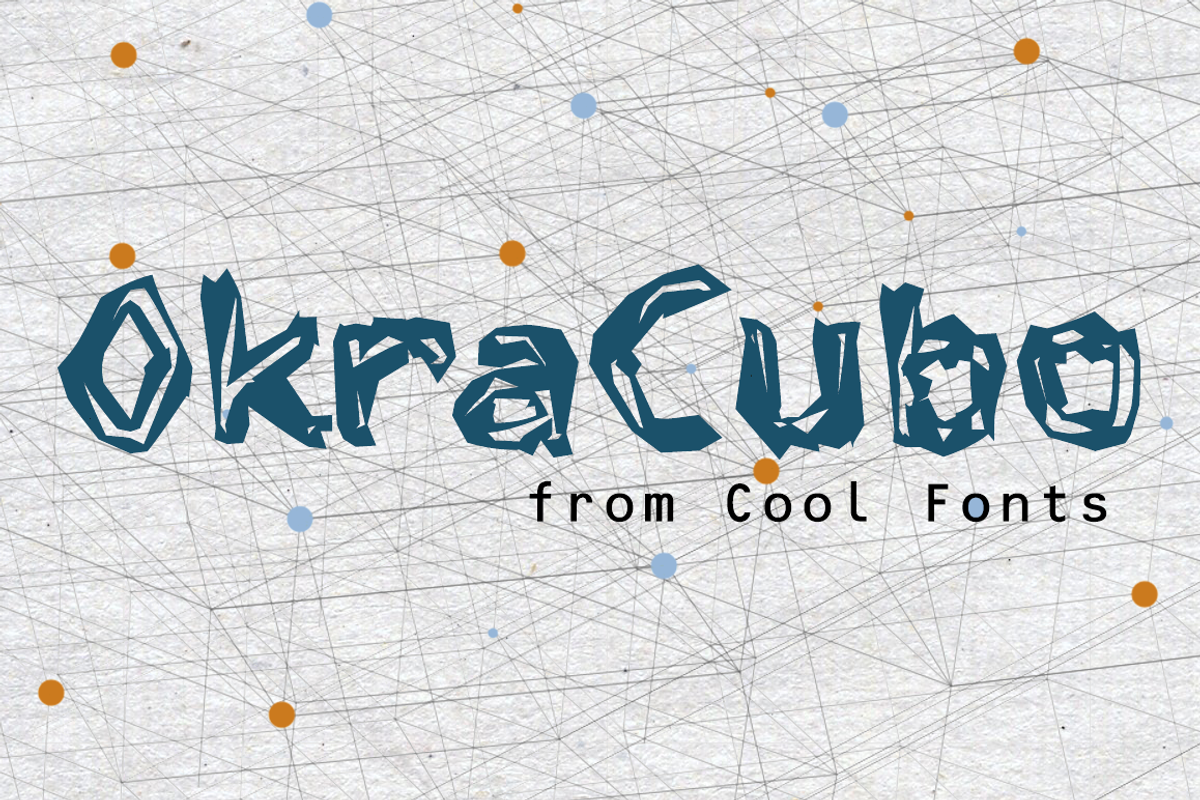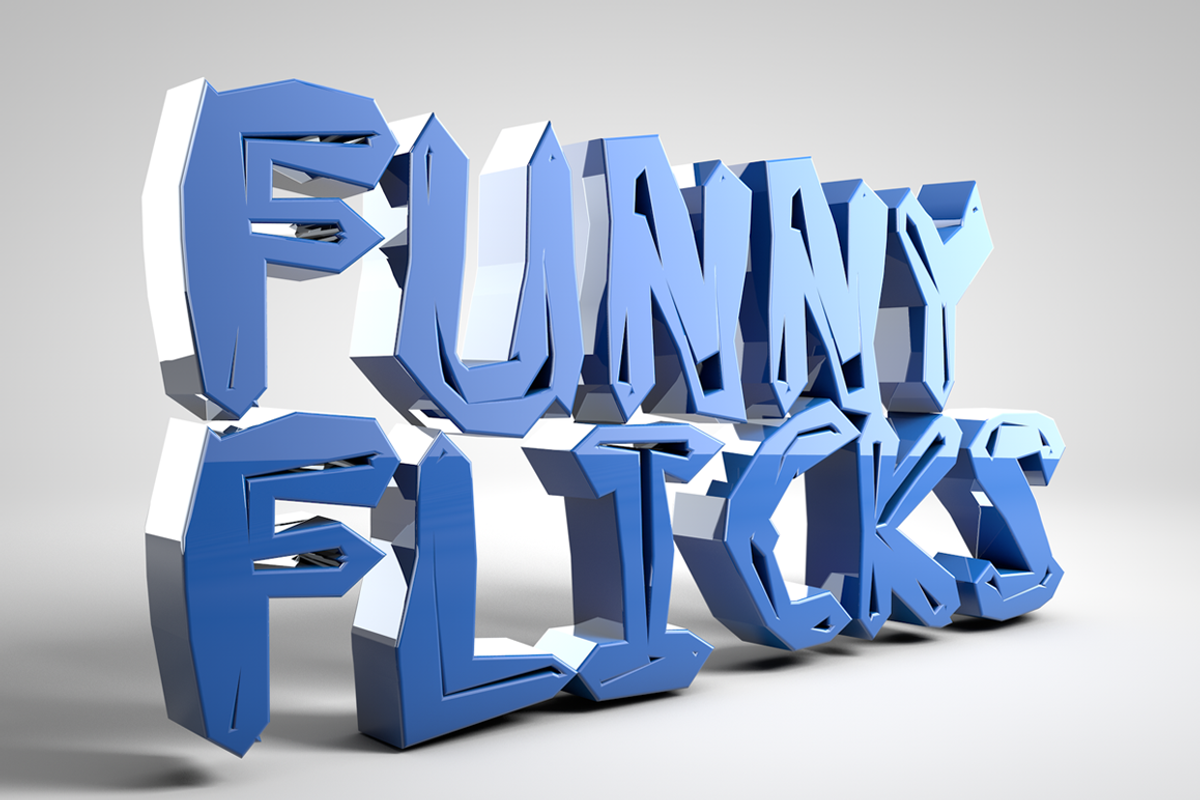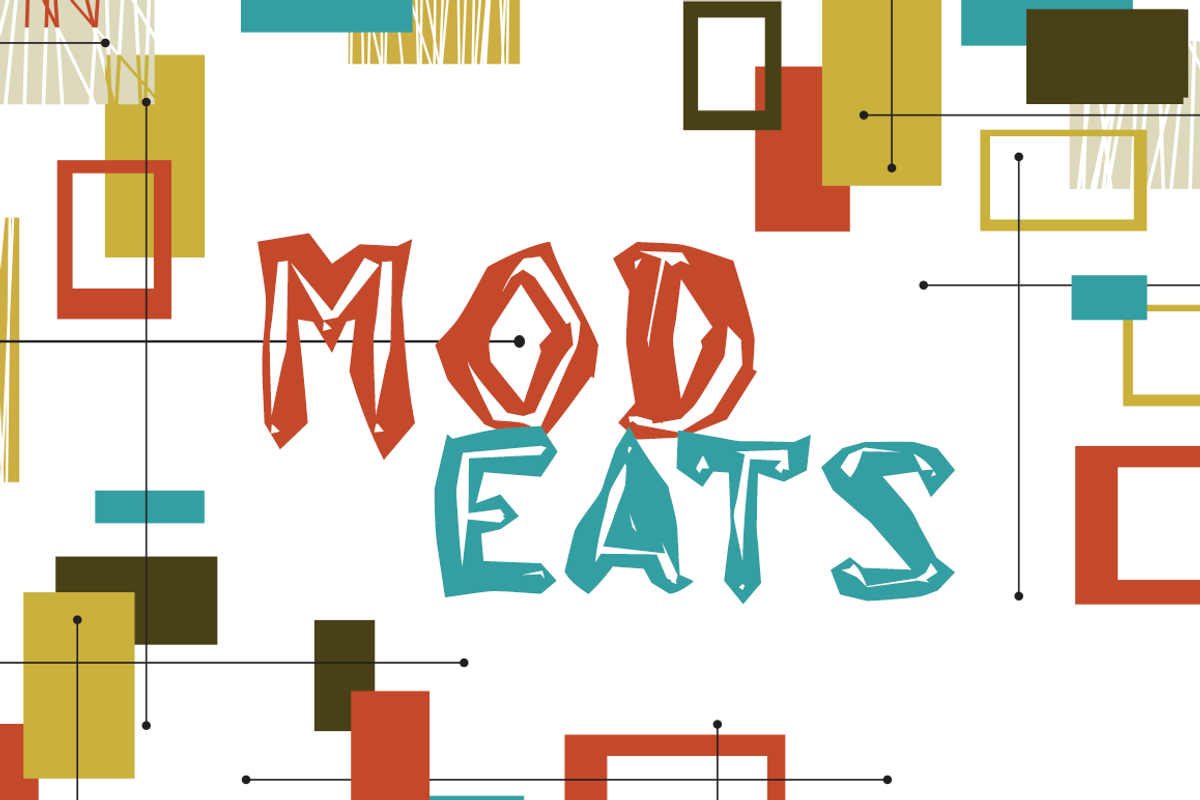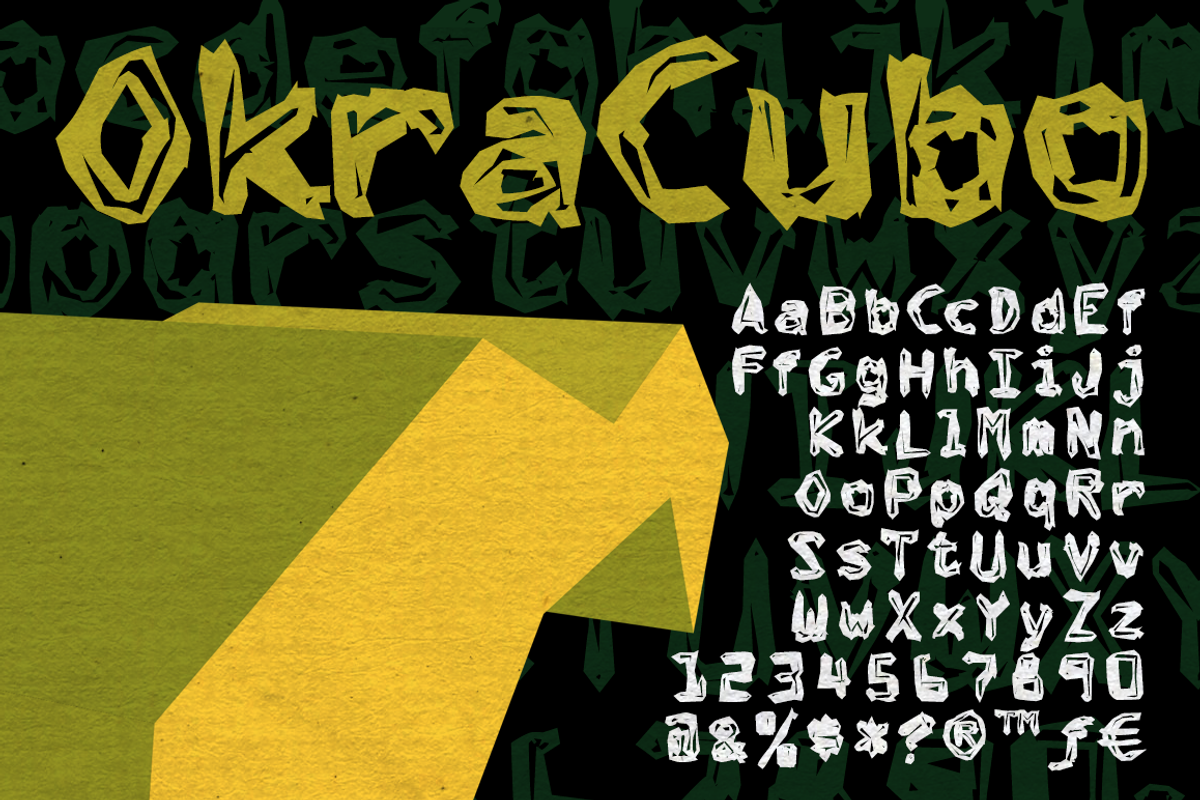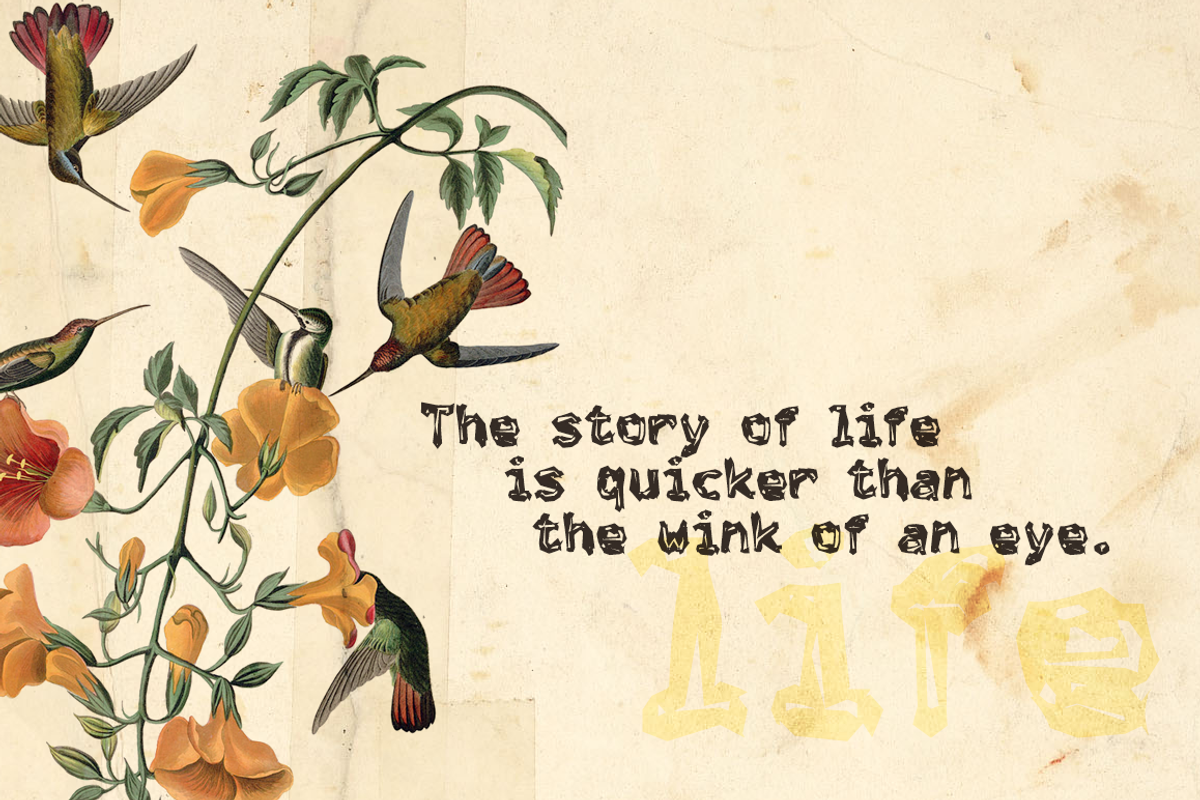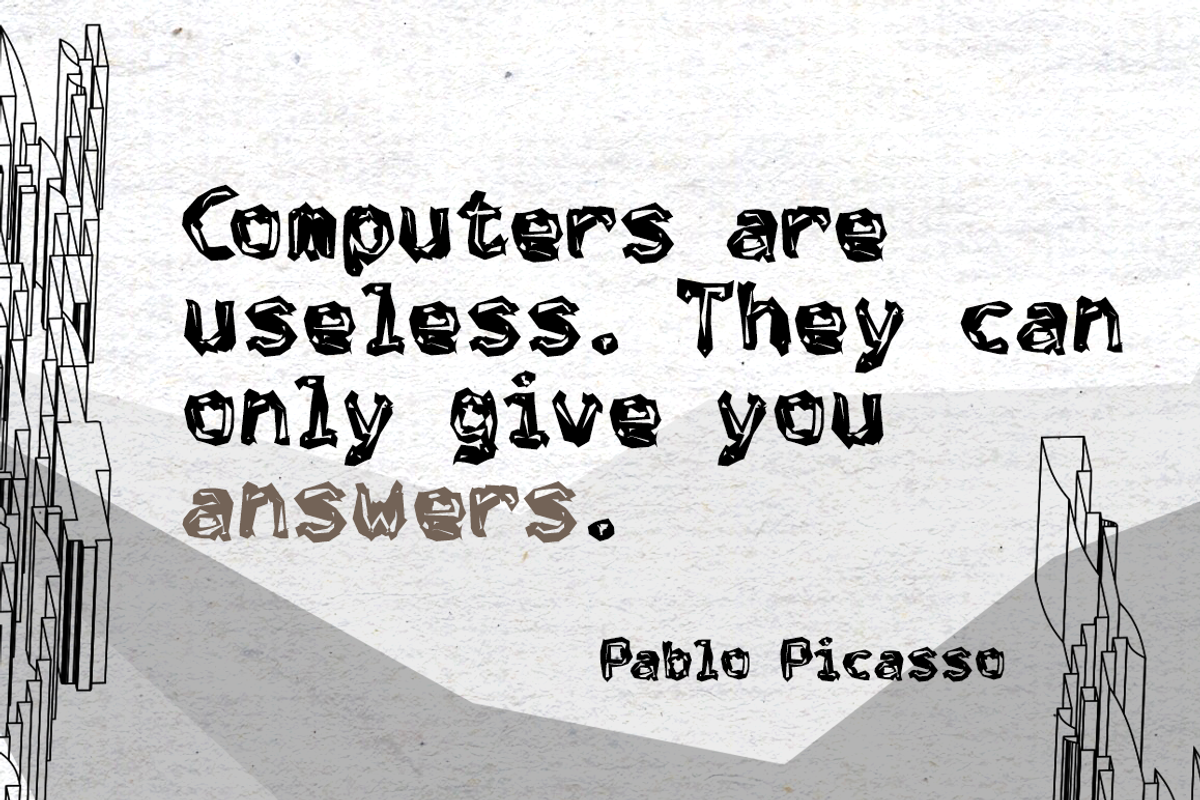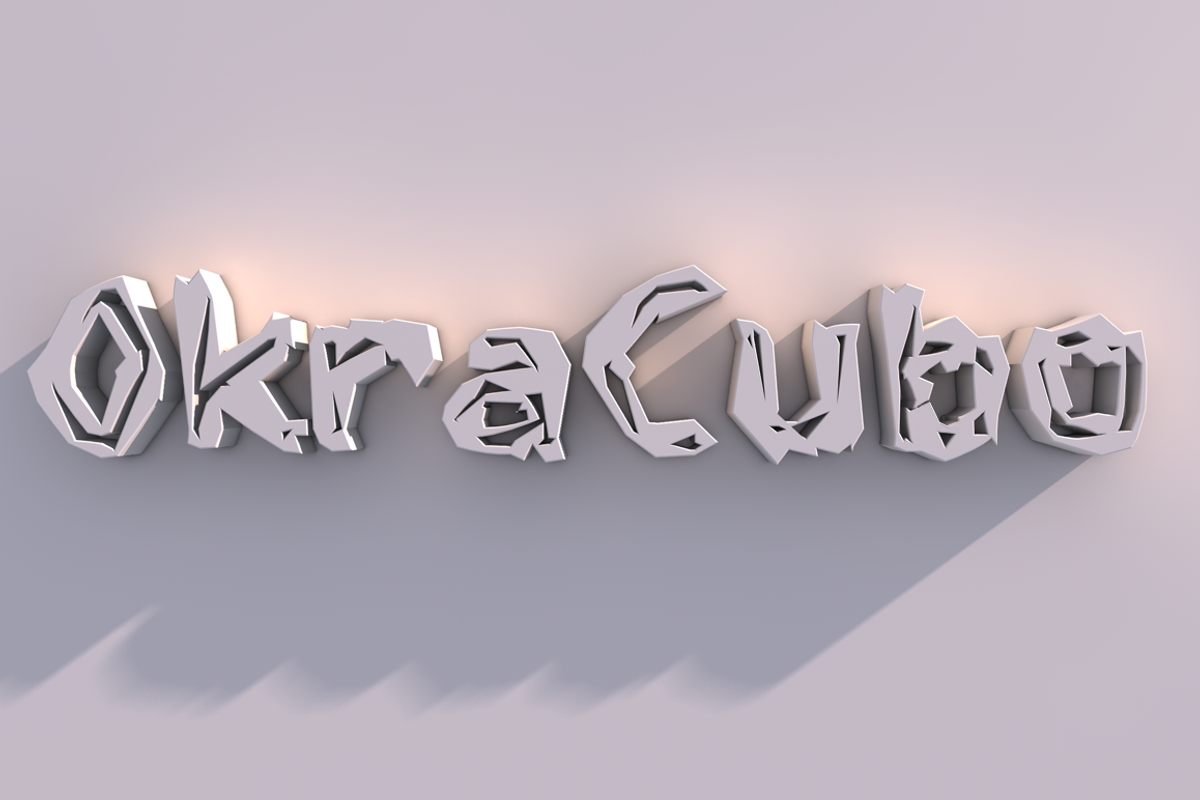
OkraCubo
OkraCubo in a distressed abstract font with a cubist twist. This font works nicely for all sorts of things from grunge to retro, etc. At small sizes it almost looks finger painted, but at large point sizes the cubist look really comes out.